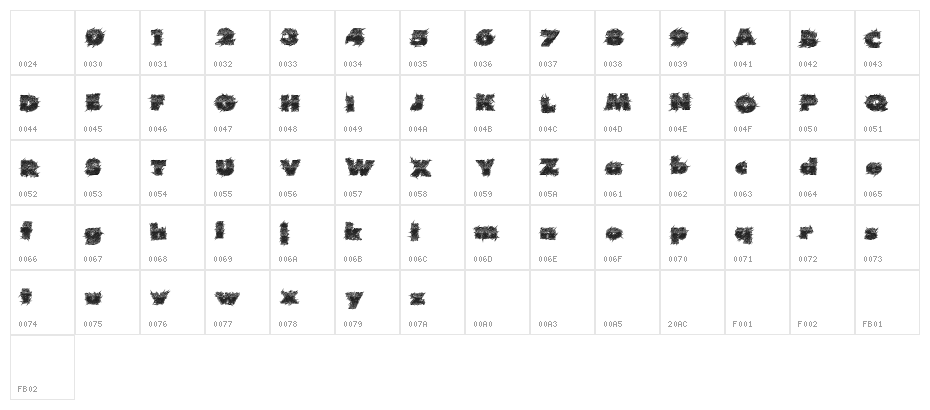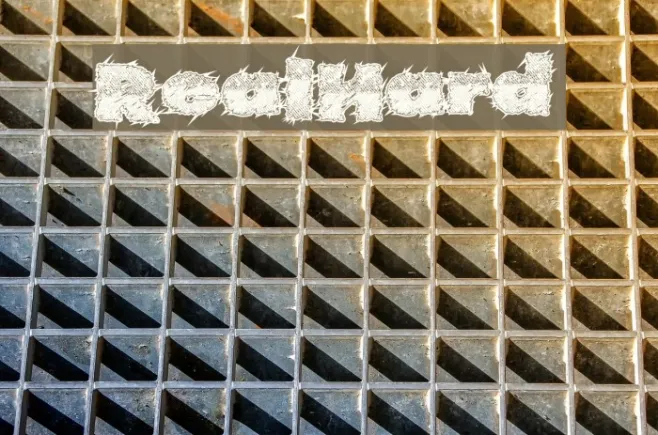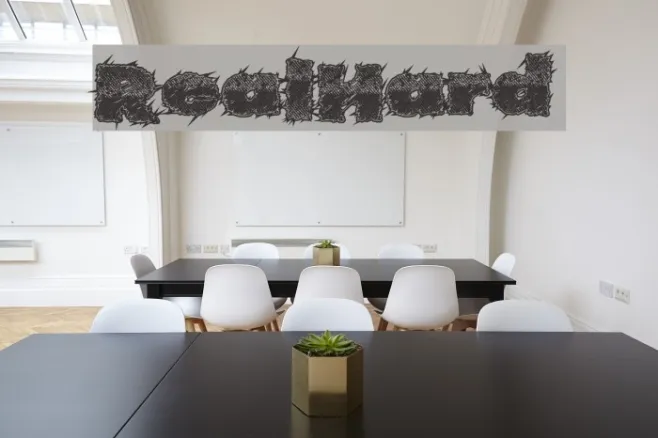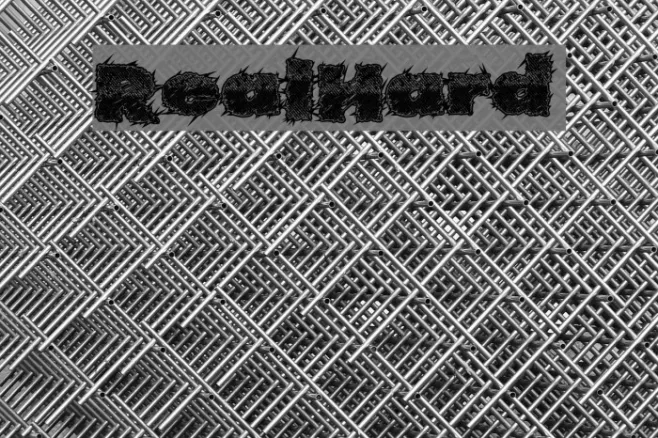
RealHard Font
RealHard Description
This font features a bold and rugged design, characterized by a spiky, thorn-like texture that gives it a distinct and edgy appearance. The letters are densely packed with intricate details, creating a sense of chaos and intensity. The uppercase and lowercase letters maintain a consistent style, while the numerals and special characters follow the same thematic design. This font's unique texture and bold presence make it stand out, offering a visually striking option for creative projects.
| Proposed Projects | Ideal for edgy designs, album covers, posters, and branding that requires a bold statement. |